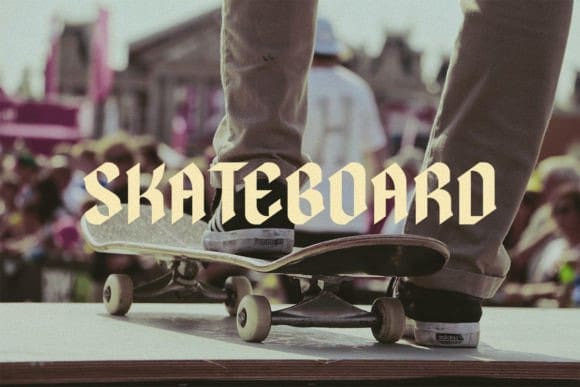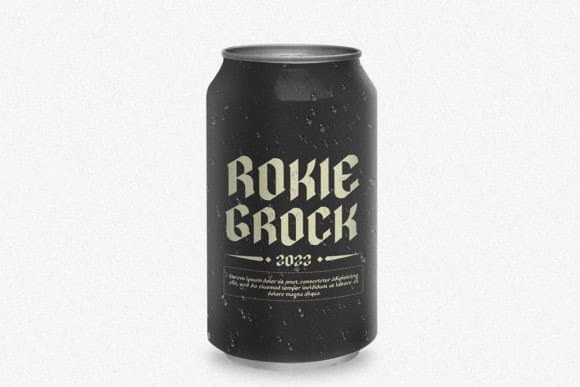
Rokie Grock Font
Rokie Grock Font is a display font with an elegant modern style, it adds a bold touch to your projects and will inspire you to create something unique and modern.
Rokie Grock is ideal for headings, flyers, greeting cards, product packaging, book covers, printed quotes, logotype, apparel designs, and album covers.